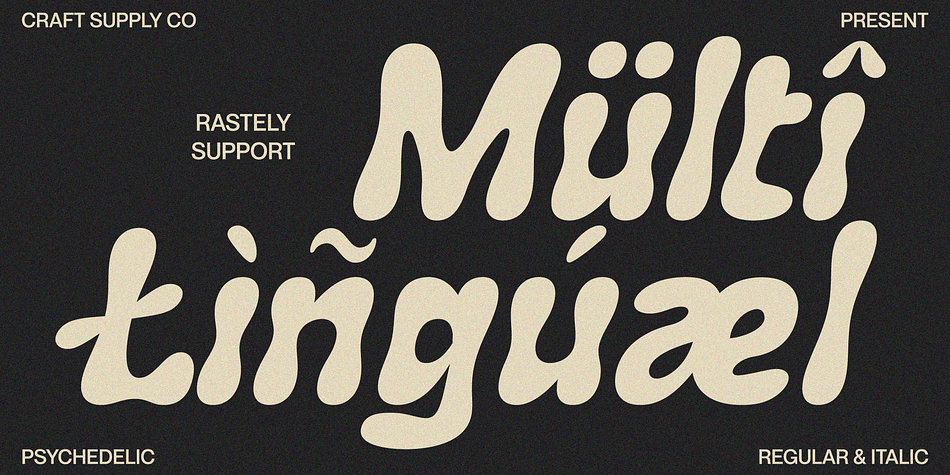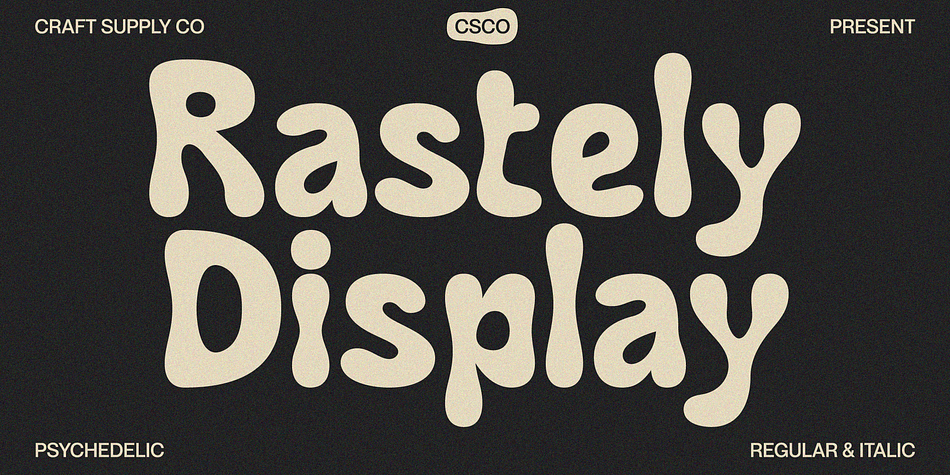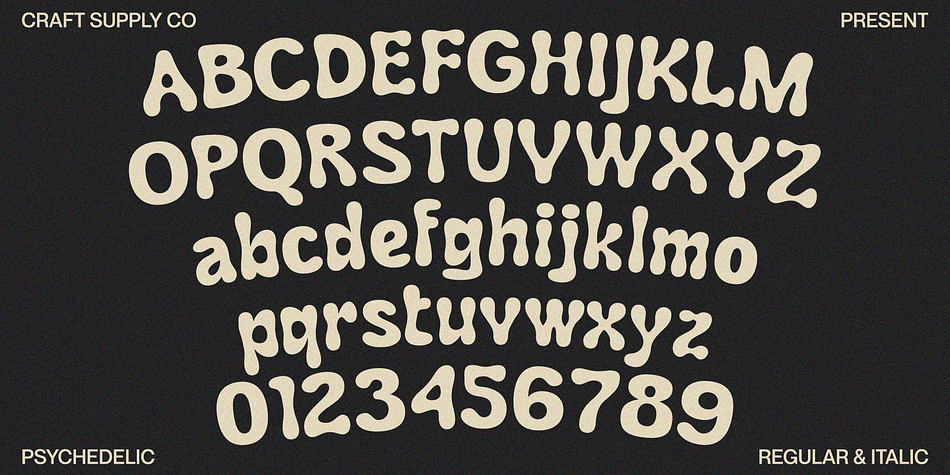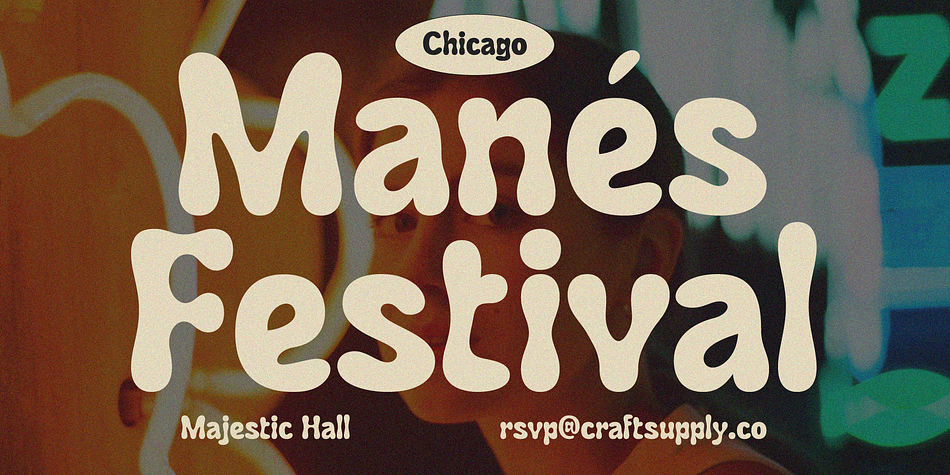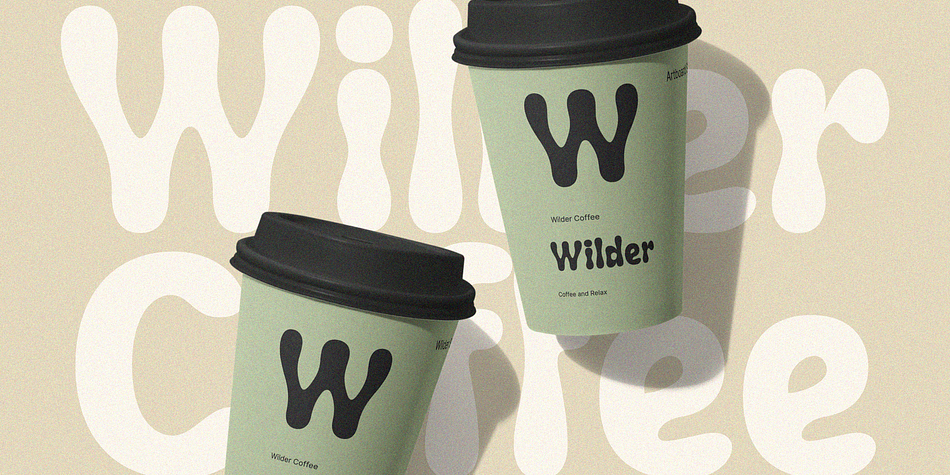
Rastely
Rastely is a retro font family. This typeface has two styles and was published by Craft Supply Co.
Unleash Your Joy with Rastely Dive into the fun with Rastely – Funky Typeface. It’s a joyful escape, perfect for creative minds. Inspired by psychedelic vibes, this font keeps it chill. Its playful curves promise a good time. Every letter brings a smile, designed for fun at first sight.
Playful to the Core Rastely isn’t just a font; it’s a party invitation. Crafted with a relaxed approach, it’s easy-going yet bold. Let each character tell a story of cheer. Imagine your projects with a touch of whimsy. Moreover, its easy legibility makes it perfect for all ages.
Cheerful Design, Versatile Use Brighten up any project effortlessly. Rastely fits everywhere – from flyers to logos. Moreover, it’s ideal for branding that pops. Not only for print, but it also shines on screens. So, your messages always stand out. Plus, it’s as friendly as a sunny day.
Simple to Use, Hard to Forget Getting started with Rastely Funky Typeface is a breeze for display typeface. Import it into any standard design software. Watch your ideas spring to life instantly. Furthermore, its unique charm is hard to overlook. Rastely brings a lasting impression, making your work unforgettable.